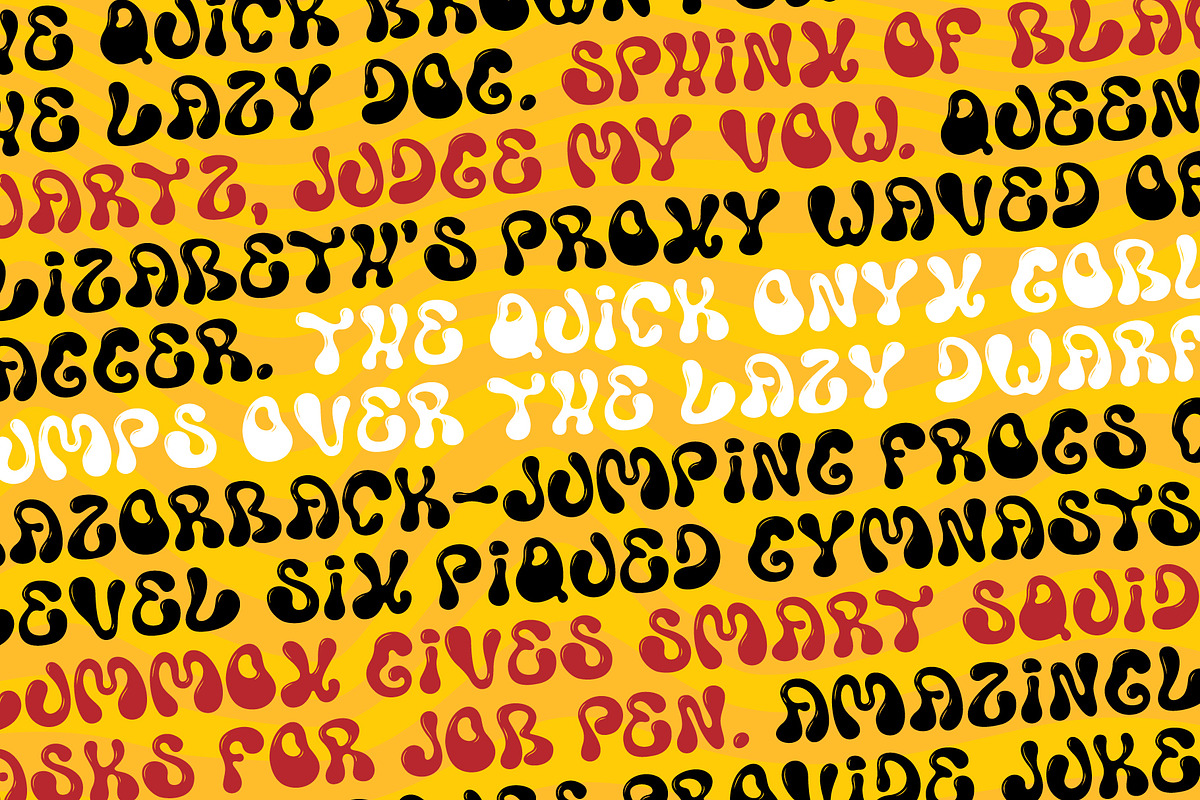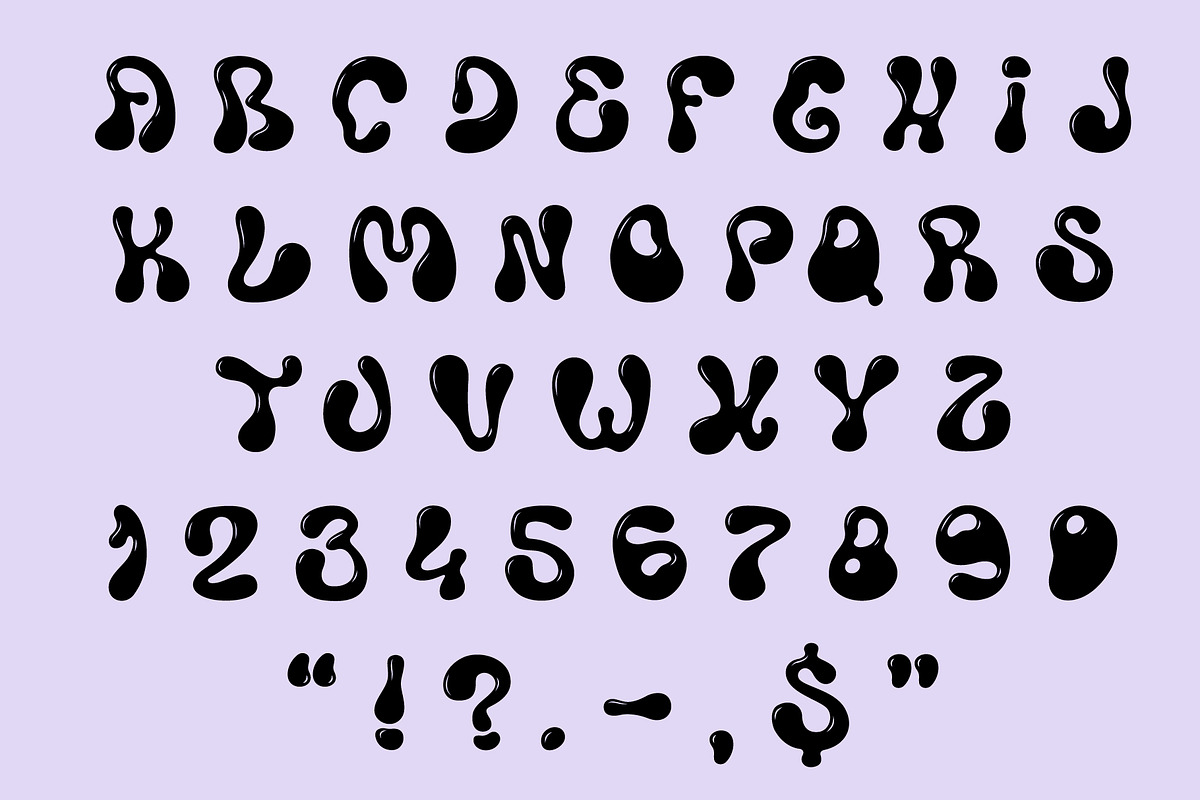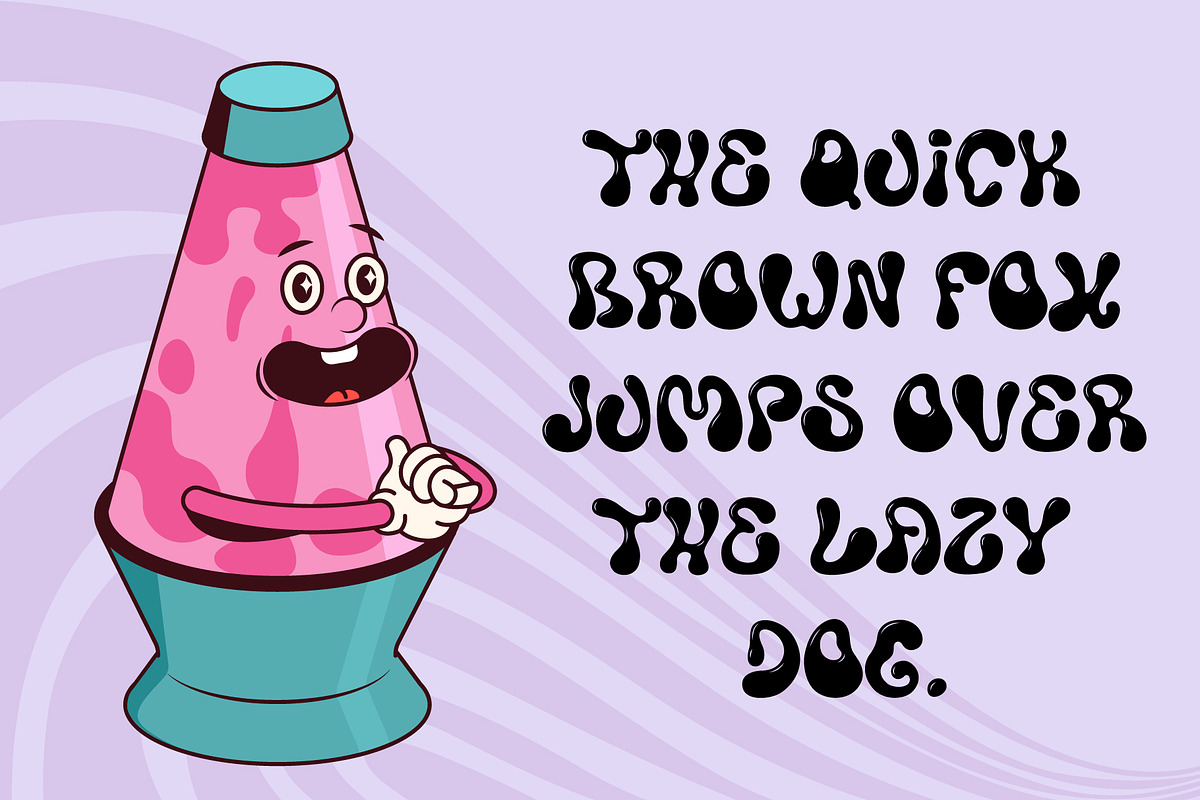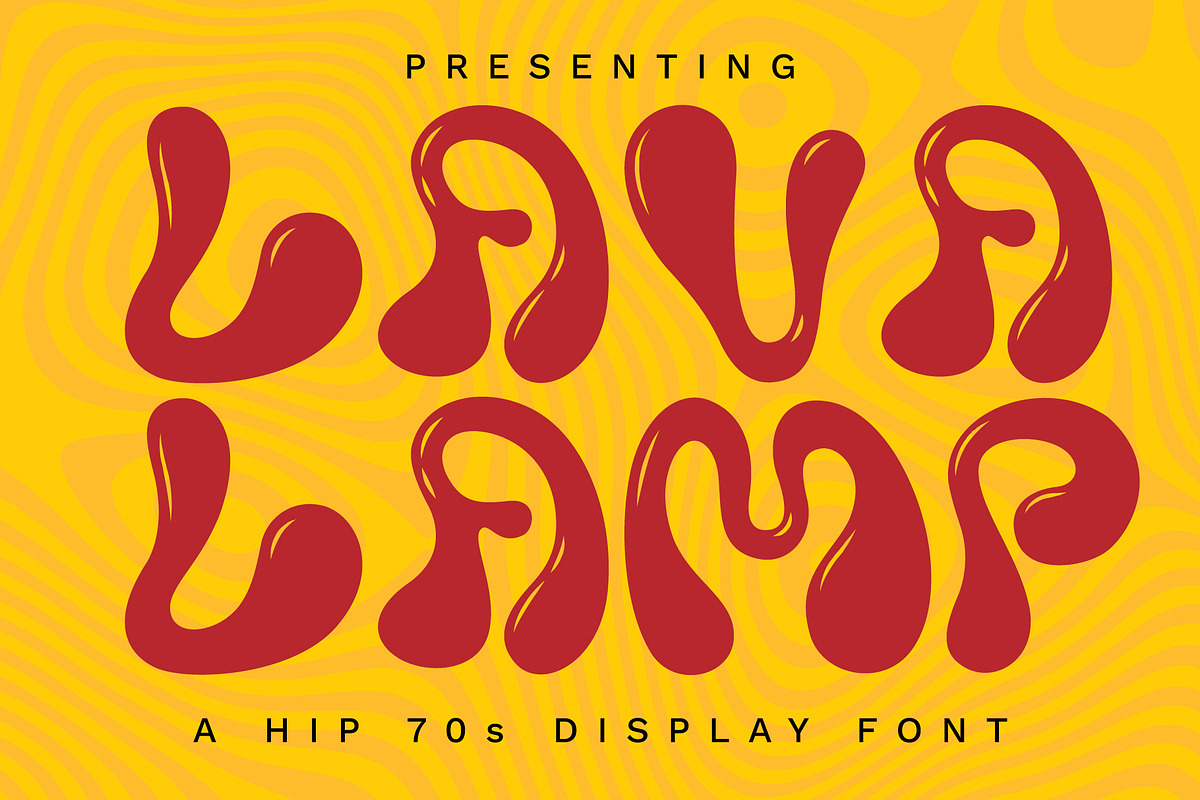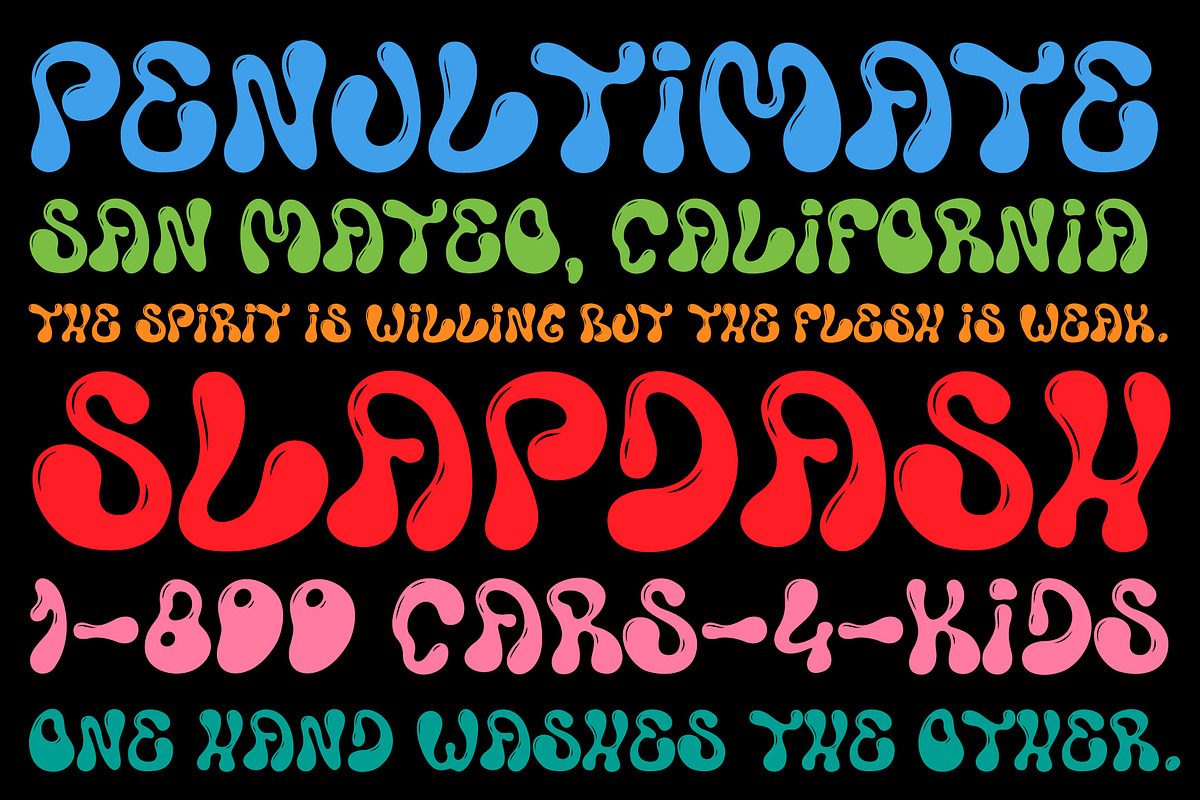
Lava Lamp
Lava Lamp is a glossy 70s display font built for posters, merch, album covers, retro branding, party flyers, record shop graphics, psychedelic packaging, and anything that needs to feel fluid, funky, and a little strange.
Built from soft curves, warped shapes, shiny highlights, and hand-drawn letterforms, Lava Lamp has a playful retro feel without leaning too hard into classic hippie clichés. It works best when you want type to feel bold, weird, colorful, and full of movement, like glowing blobs drifting through an old lava lamp.
Perfect for music posters, festival graphics, vintage tees, record covers, bar branding, funky logos, product packaging, skate graphics, surf designs, party invitations, kids’ merch, novelty products, and loud retro layouts.
Includes uppercase letters, numbers, and light punctuation.